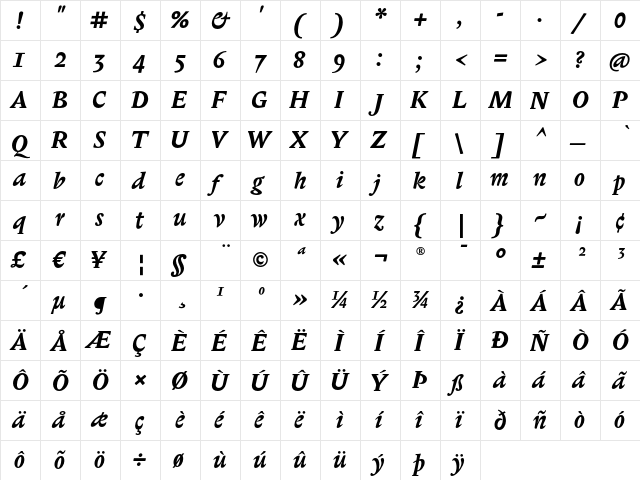
Biblon ITC Bold Italic
Design Context for Biblon ITC Typeface
Biblon ITC is a composed and adaptable typeface that performs quietly and consistently across a wide range of design contexts. Its italic angle brings a sense of urgency and motion to the letterforms. The heavy weight commands attention and anchors typographic hierarchies.
Pro Tip: Try Biblon ITC for annotation and caption copy alongside an upright companion — the contrast in angle creates a dynamic but ordered typographic system.